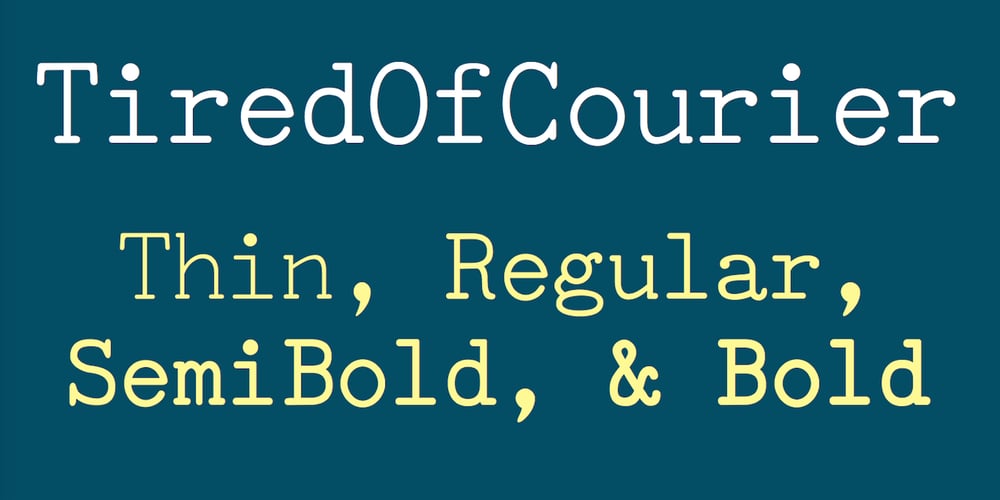
TiredOfCourier
TiredOfCourier font
TiredOfCourier Font Family was designed by Robert Schenk and published by Ingrimayne Type. TiredOfCourier contains 8 styles and family package options. Courier is the king of typewriter faces. But if you want an alternative, something with a look reminiscent of the older, manual typewriters, consider TiredOfCourier. The family includes true italics, something very unusual in a typewriter face.